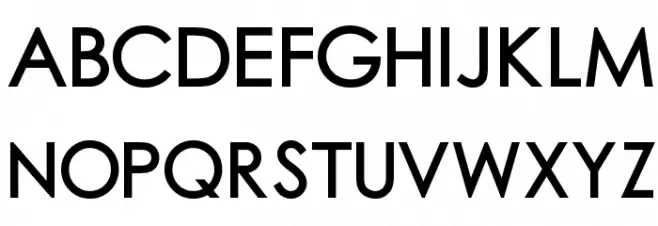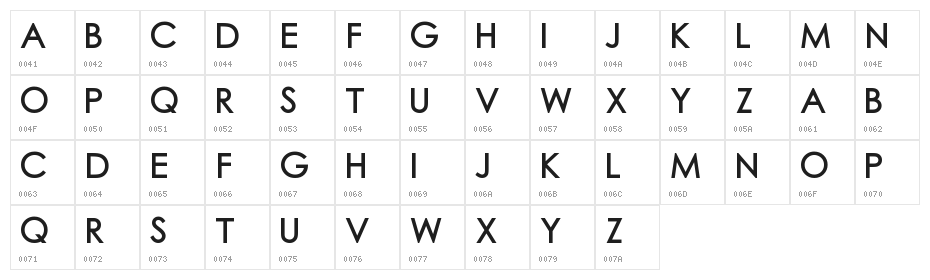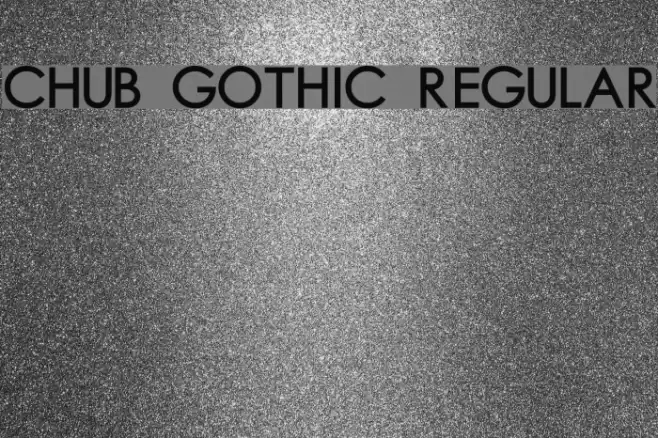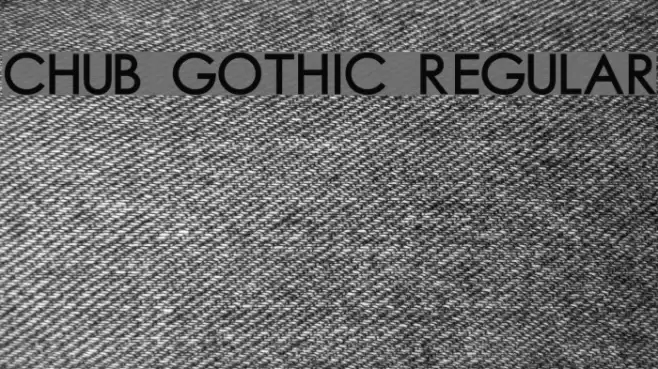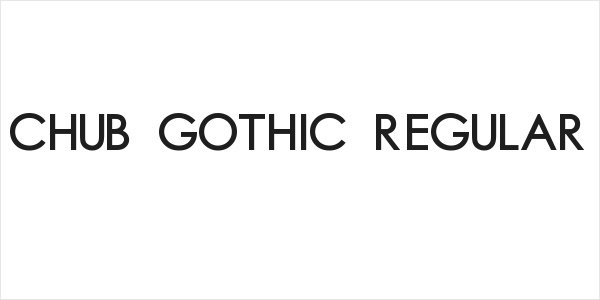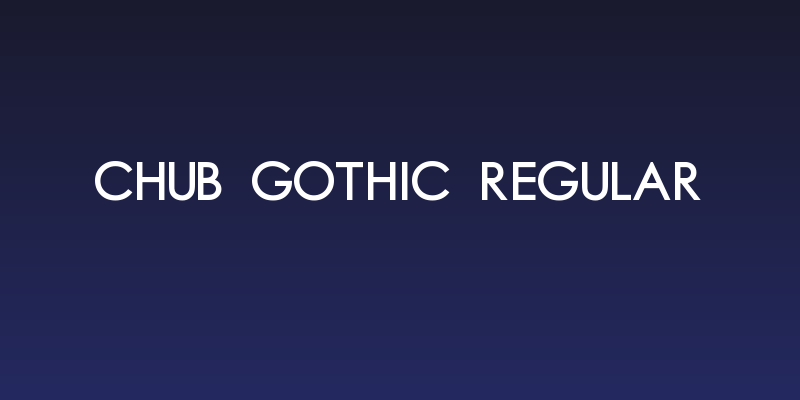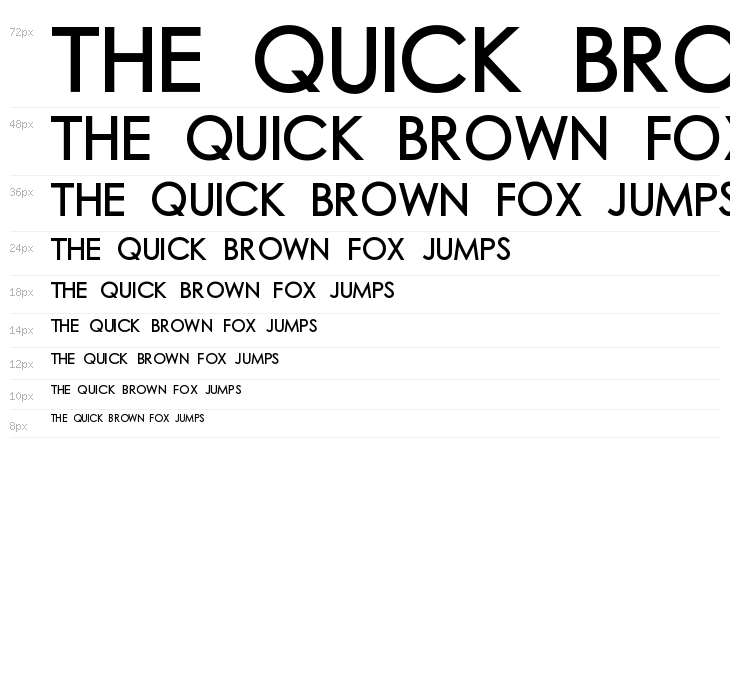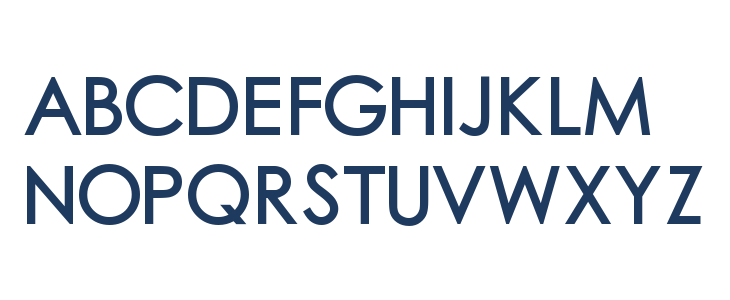
Chub Gothic Regular Font
Chub Gothic Regular Description
This font features a clean and modern sans-serif style with uniform stroke widths, creating a bold and impactful appearance. The characters are well-proportioned, with a geometric influence that lends a contemporary feel. The uppercase letters are particularly striking, with a strong presence that commands attention. The lowercase letters maintain the same geometric consistency, ensuring readability and versatility. The overall design is minimalistic yet powerful, making it suitable for a variety of applications where clarity and modernity are desired.
| Proposed Projects | Ideal for branding, advertising, and editorial design where a modern and bold statement is needed. |